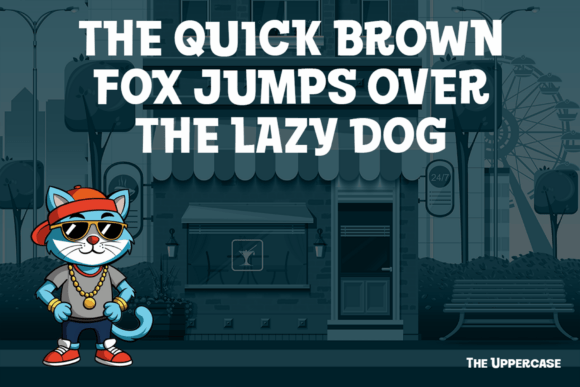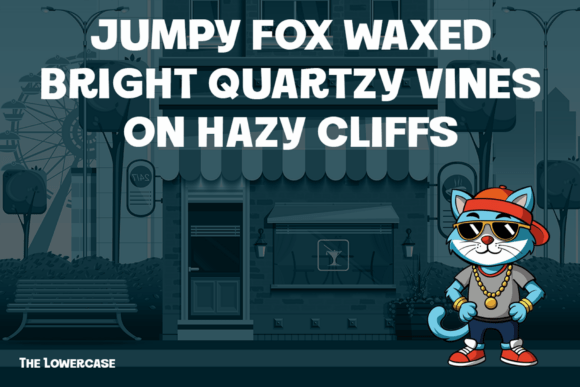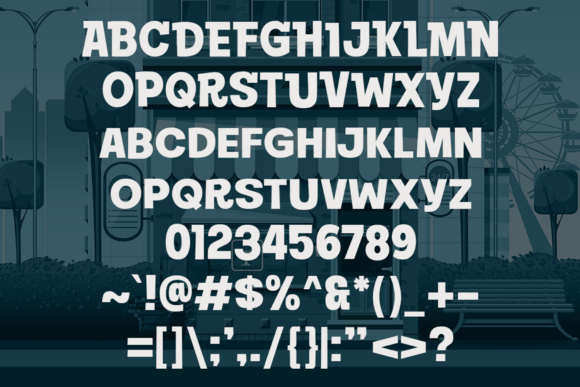
Gimme Rizz Font: Unleash Your Creativity with a Bold, Quirky, and Playful Display Font
Are you tired of using the same old fonts in your designs? Do you want to add a dash of personality and whimsy to your text? Look no further than Gimme Rizz, a bold, quirky, and playful display font that’s perfect for designers and crafters who want to make a statement. Inspired by comic books, cartoon typography, and kids’ entertainment visuals, Gimme Rizz is the perfect addition to your font collection.
The Inspiration Behind Gimme Rizz
Gimme Rizz is a font that’s all about fun and playfulness. Its chunky shapes and expressive letterforms are reminiscent of classic comic books and cartoons, evoking a sense of nostalgia and wonder. The font’s bold and quirky design makes it perfect for grabbing attention and adding a touch of humor to your designs. Whether you’re creating a kids’ book cover, a toy package, or a playful logo, Gimme Rizz is the perfect choice.
So, what can you use Gimme Rizz for? The possibilities are endless! Here are some ideas to get you started:
- Kids book covers and storybooks: Add a touch of whimsy and fun to your book covers with Gimme Rizz.
- Toy packaging and branding: Make your toys stand out on store shelves with Gimme Rizz’s bold and playful design.
- Children’s posters and invitations: Create eye-catching posters and invitations that kids will love.
- Playful logo designs: Add a dash of personality to your logo with Gimme Rizz’s quirky and expressive letterforms.
- Comic-style artwork: Gimme Rizz is perfect for creating comic-style artwork that’s bold, colorful, and fun.
- Fun merchandise and apparel graphics: Add a touch of humor and whimsy to your merchandise and apparel with Gimme Rizz.
Why Choose Gimme Rizz?
So, why choose Gimme Rizz over other fonts? Here are just a few reasons:
- Unique and eye-catching design: Gimme Rizz’s bold and quirky design makes it stand out from other fonts.
- Perfect for kids and adults alike: Gimme Rizz’s playful design appeals to kids and adults alike, making it perfect for a wide range of projects.
- Easy to read: Despite its bold and chunky design, Gimme Rizz is easy to read, even at small sizes.
- Versatile: Gimme Rizz can be used for a wide range of projects, from kids’ book covers to playful logos.
If you’re looking for a font that’s bold, quirky, and playful, look no further than Gimme Rizz. With its chunky shapes and expressive letterforms, Gimme Rizz brings a dose of charm and personality to every word you type. Perfect for kids’ book covers, toy packaging, and playful logos, Gimme Rizz is the perfect addition to your font collection. So why wait? Download Gimme Rizz now and let your designs speak with style and fun!